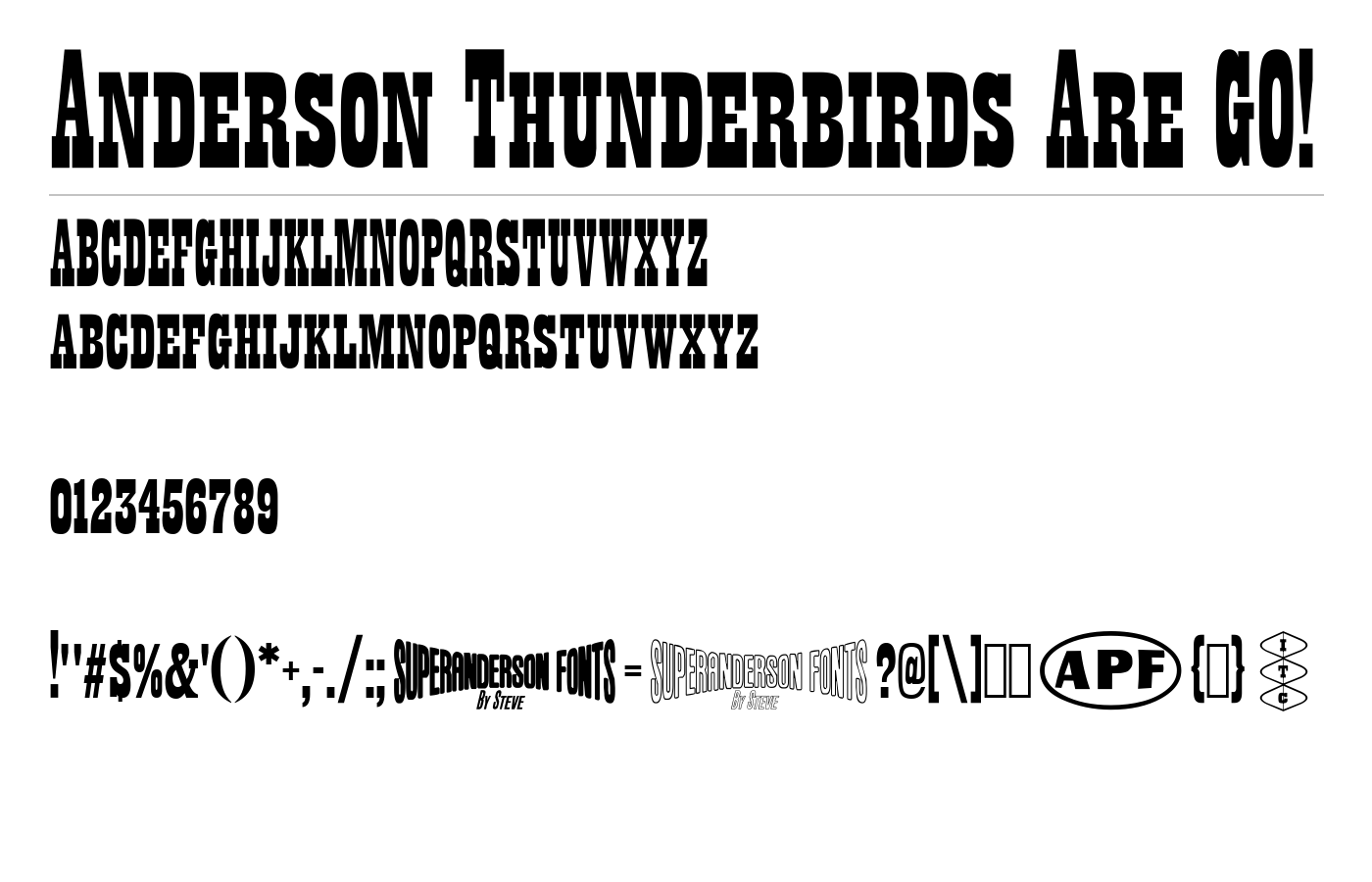
Anderson Thunderbirds Are GO! is a bold, condensed slab serif font with strong, blocky letterforms that command attention. Its high contrast and sturdy serifs evoke a vintage Western or industrial feel, making it perfect for impactful headlines, posters, and branding that need a confident, rugged style. This font works well where bold presence and a touch of retro character are desired.
Anderson Thunderbirds Are GO! Font
About Anderson Thunderbirds Are GO! Font